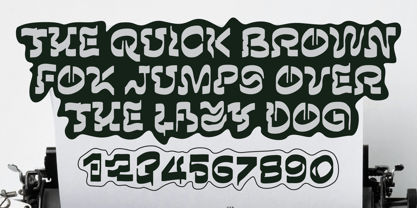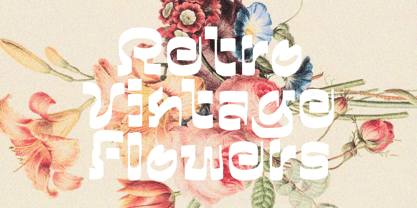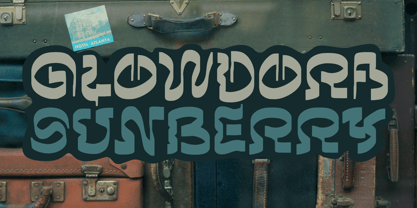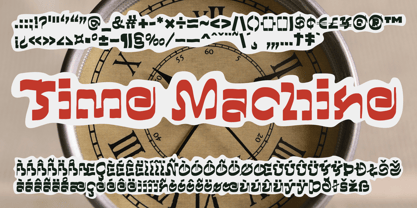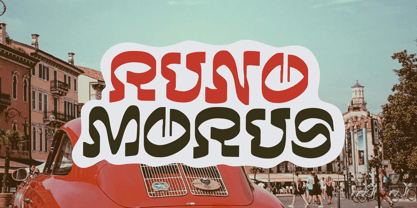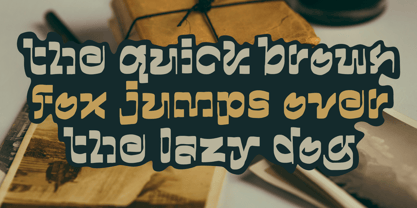
Runo Morus
Runo Morus is a bold display typeface that fuses the dramatic flair of blackletter with retro and vintage influences. Its letterforms are strikingly unique — carved with sharp turns, playful curves, and unexpected negative spaces, giving each glyph a sense of rhythm and movement.
Inspired by mid-century aesthetics, funky signage, and old European charm, Runo Morus feels both nostalgic and futuristic. The letter shapes echo a time when typography was expressive, hand-crafted, and full of personality. Perfect for headlines, posters, record covers, or any design project that needs to stand out with attitude.
With a touch of rebellion and a whole lot of style, Runo Morus isn’t just a font — it’s a statement.